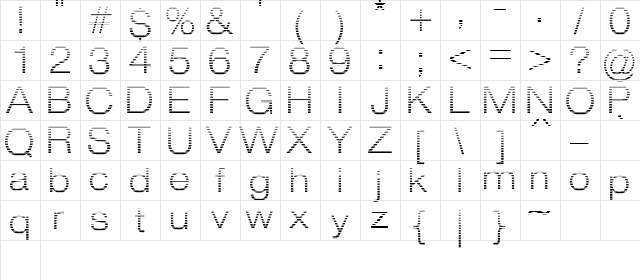
Strait Cut Regular
Design Context for Strait Cut Typeface
Strait Cut is a composed and adaptable typeface that performs quietly and consistently across a wide range of design contexts.